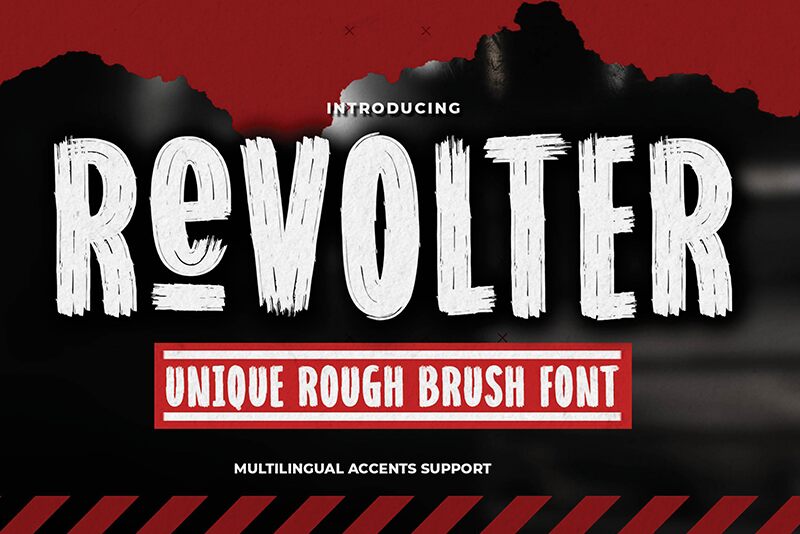
Revolter by Gassstype is not just a font-it's an embodiment of raw energy and robust design that captures the spirit of rebellion. This unique rough brush font boasts an extraordinary creation process, starting with swift, casual strokes in Procreate, before being meticulously traced into a vector format. The result is a bold, extra-condensed typeface with a rugged texture that brings an authentic touch to any creative work.
Crafted to dominate designs with its strong characteristic and natural look, Revolter offers designers the very essence of brush stroke artistry. Its alternate glyphs accessible via the OpenType panel enhance versatility, making it perfect for logos, branding projects, product packaging, or any project that demands a cool and powerful brush font. Dive into the world of Revolter and let your designs scream originality!